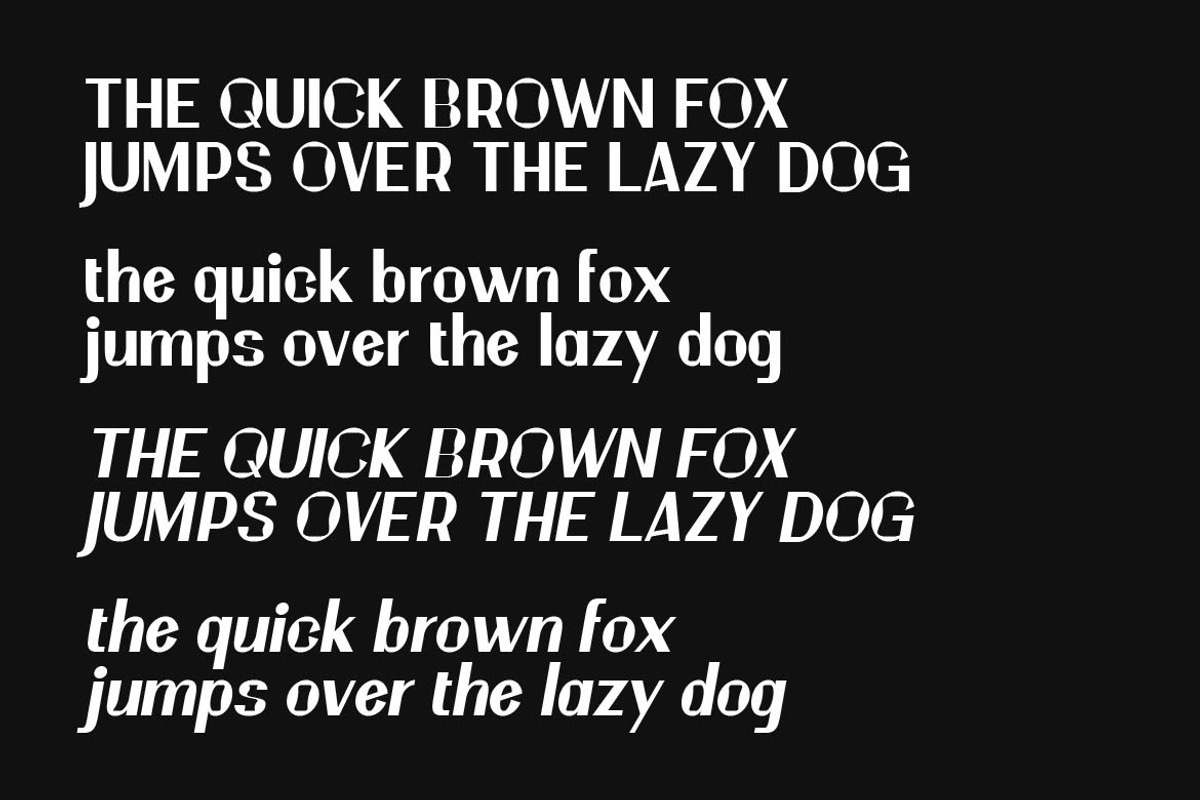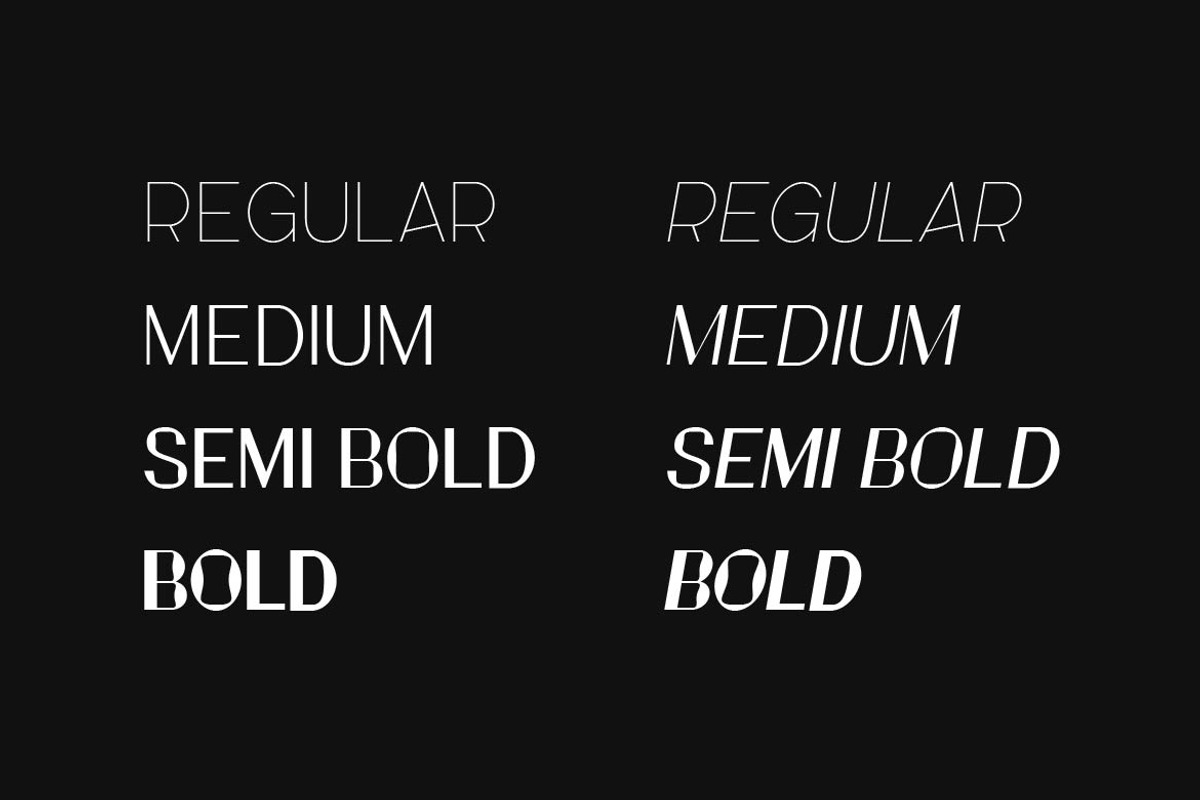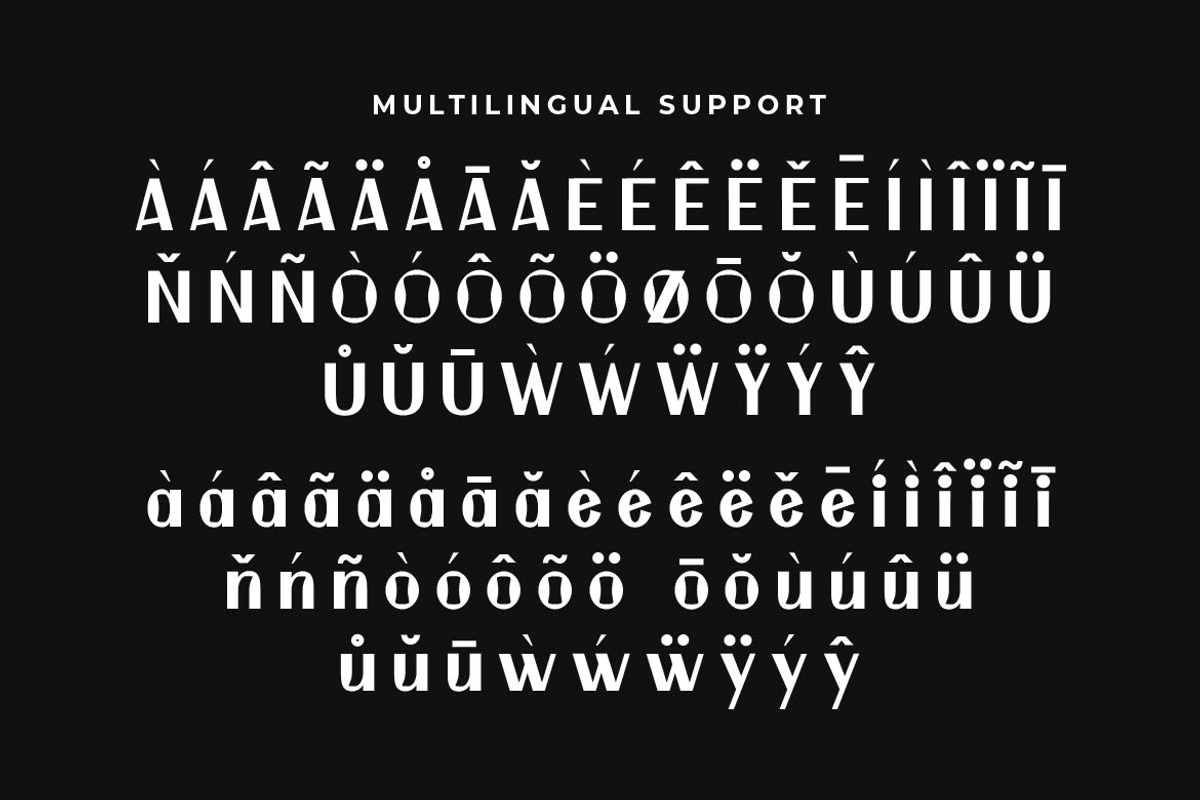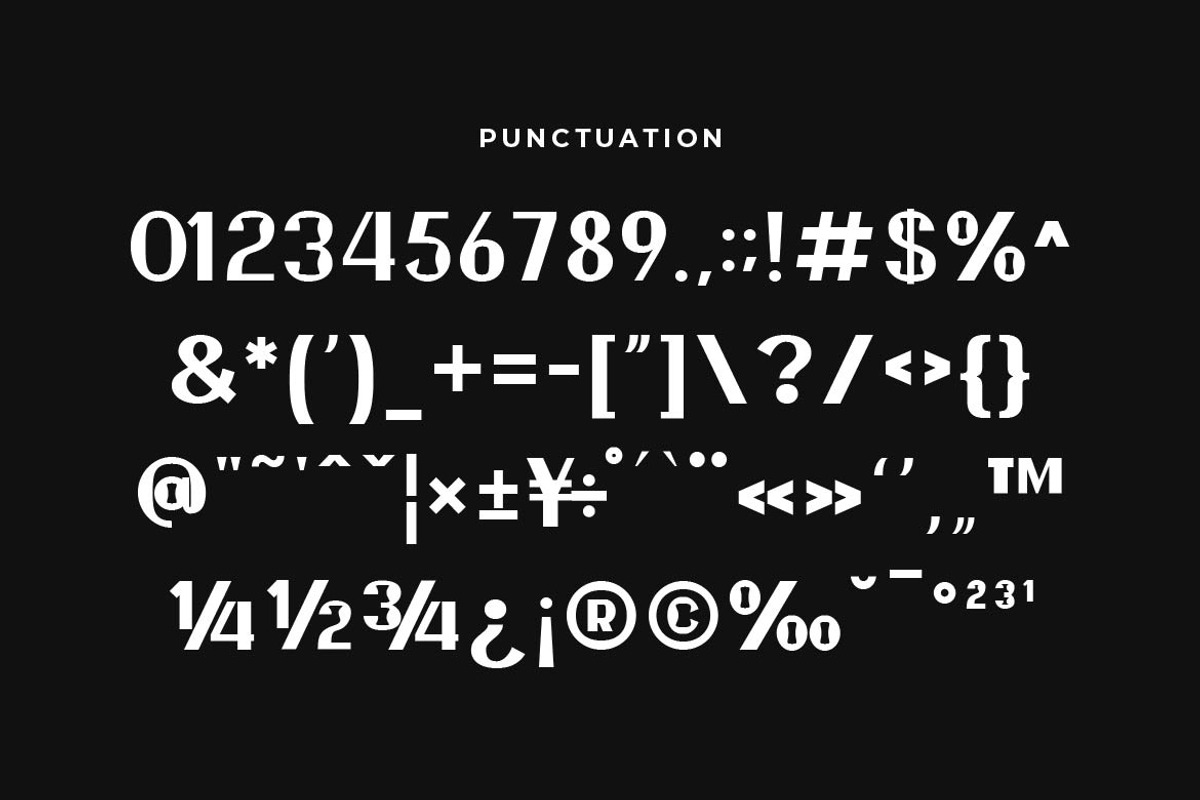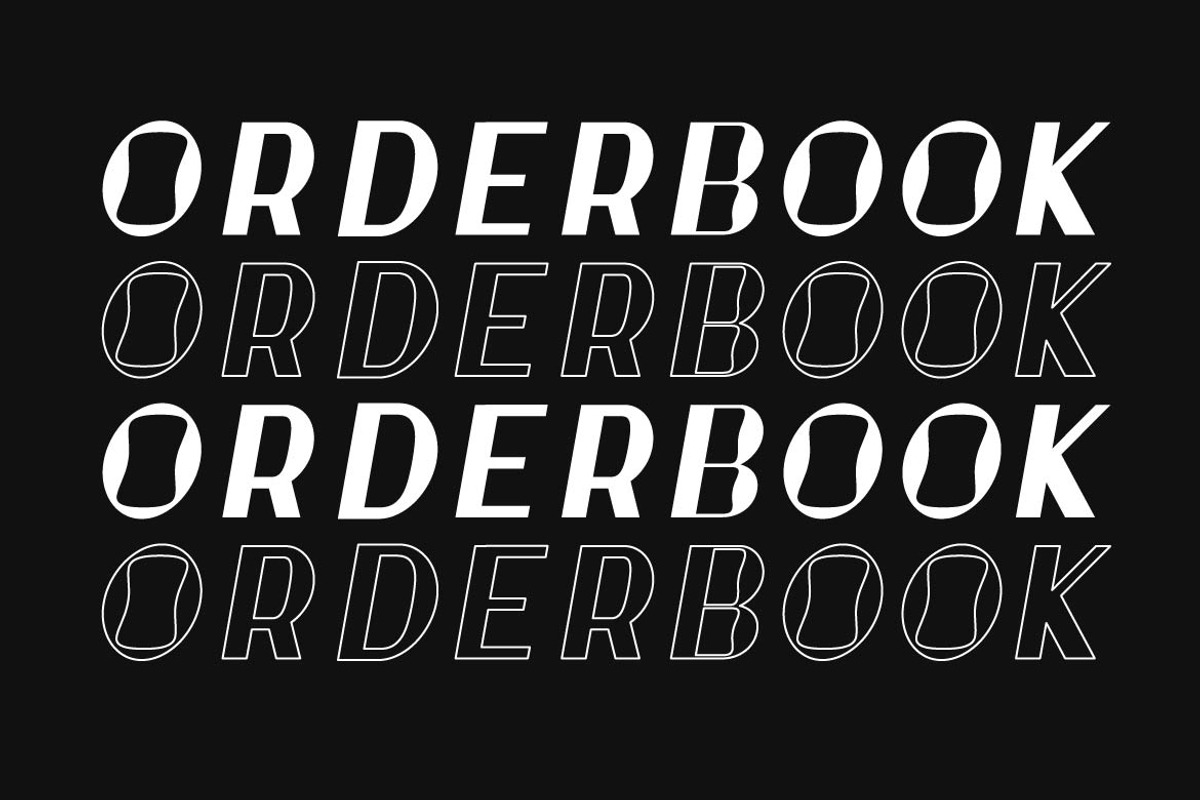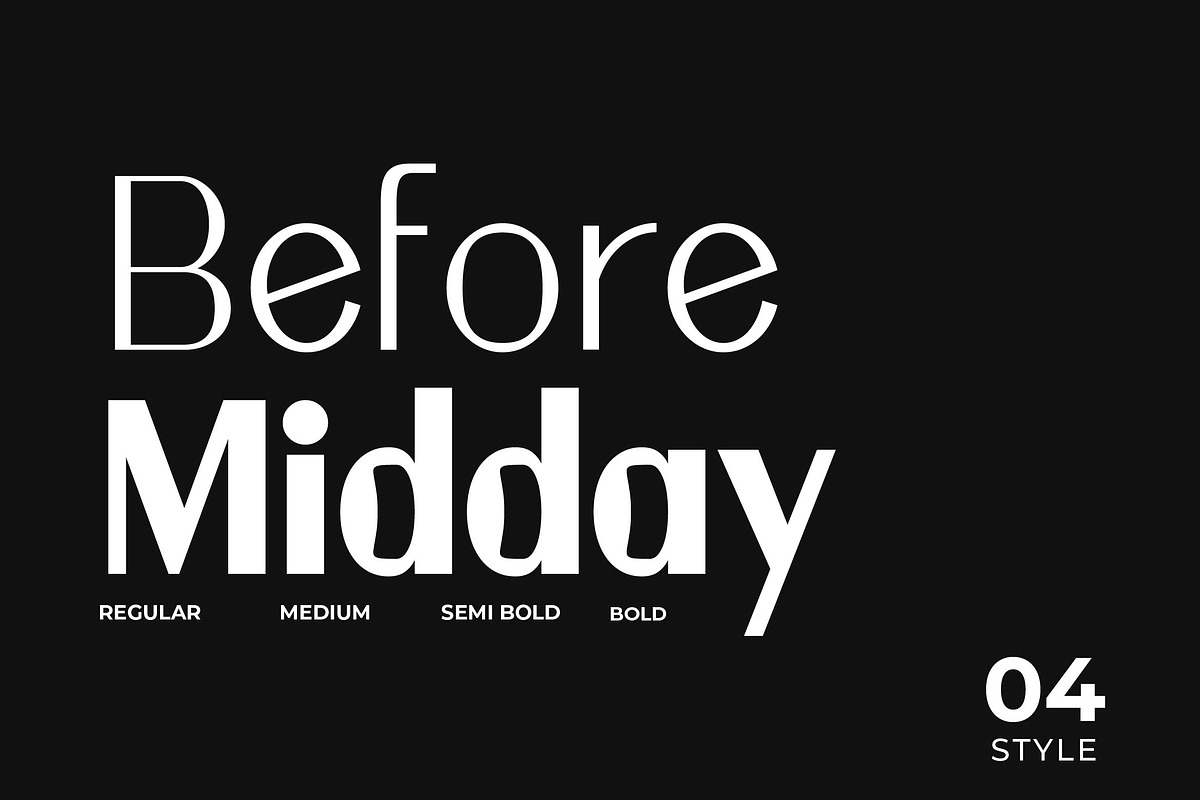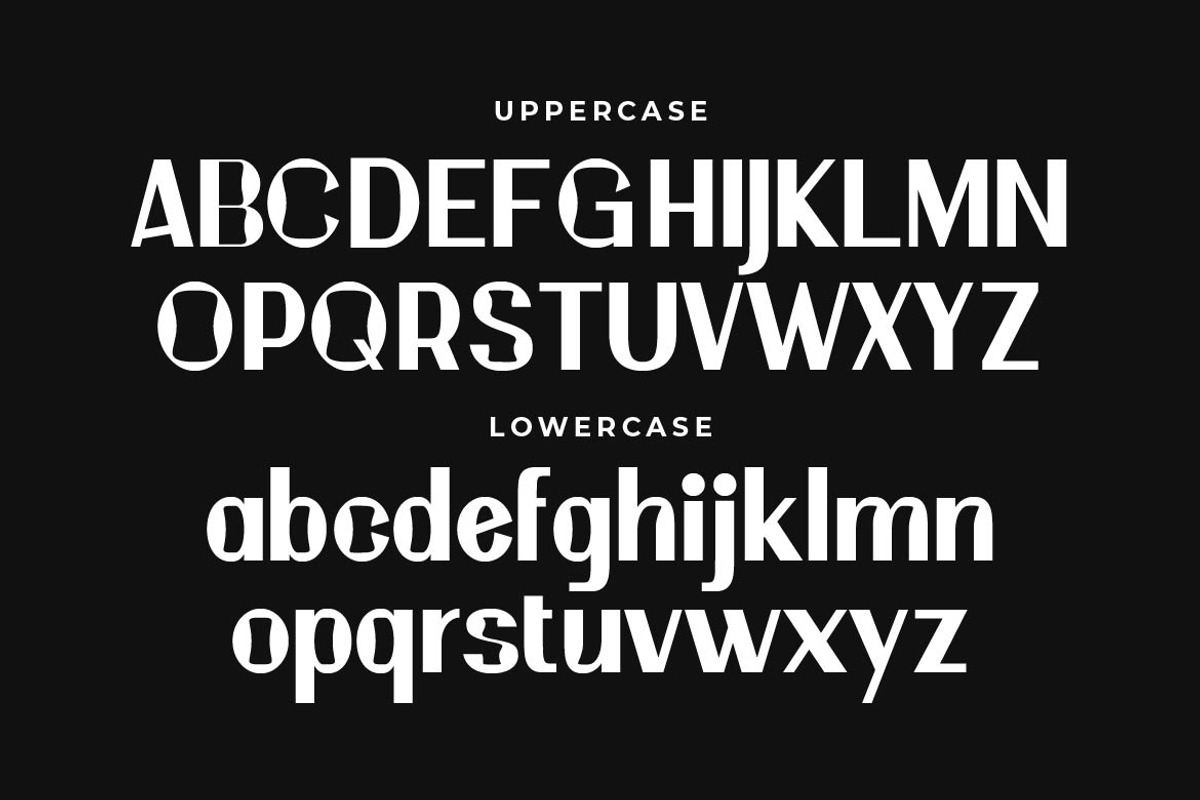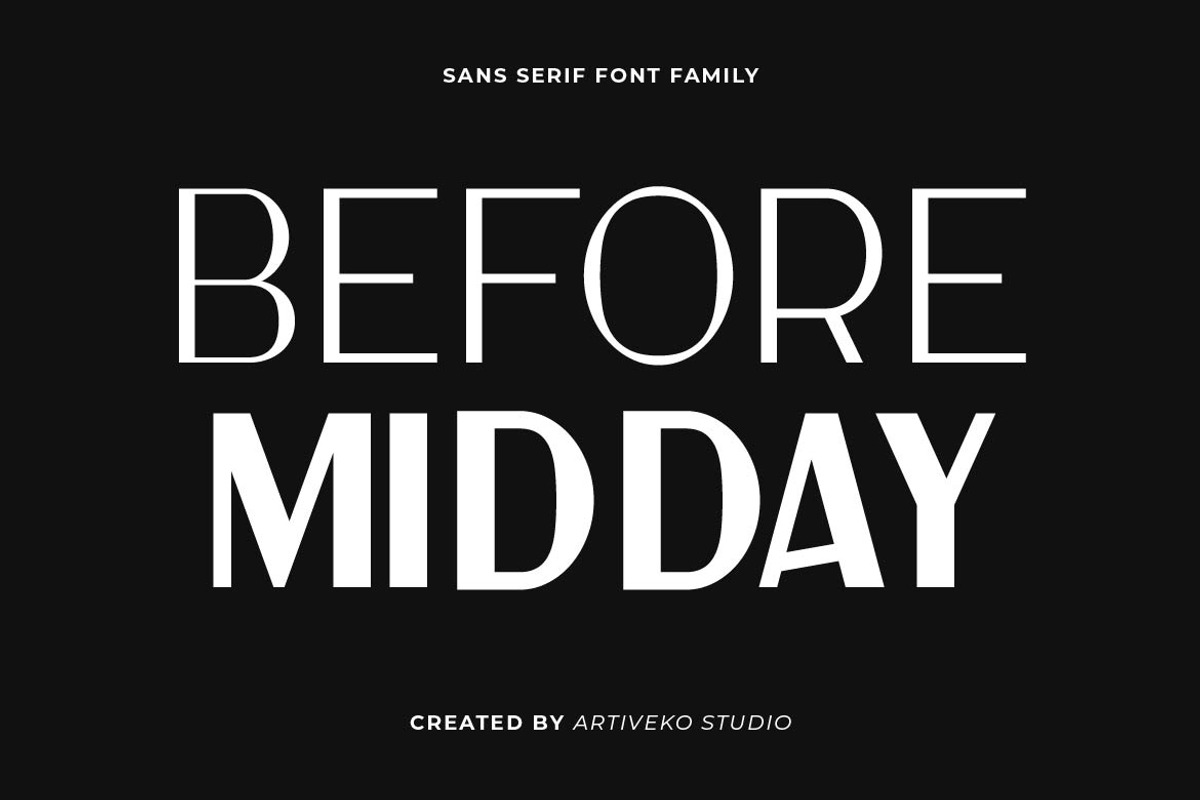
Before Midday Creative Sans Serif
Before Midday is a refined sans serif font family designed to deliver clarity, calmness, and modern versatility. With its balanced proportions, smooth curves, and gentle stroke contrast, Before Midday offers a clean and friendly appearance that feels professional yet approachable.